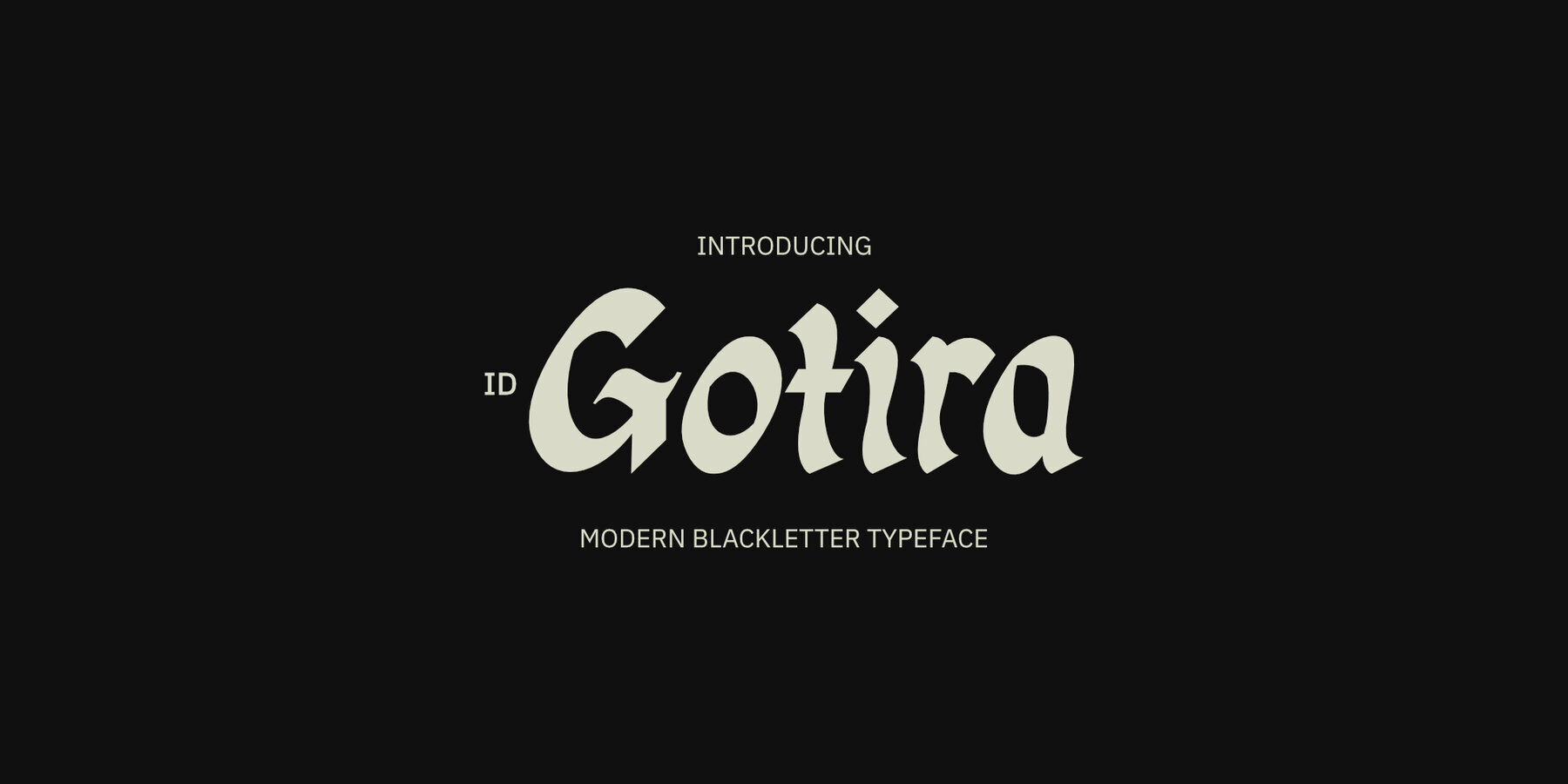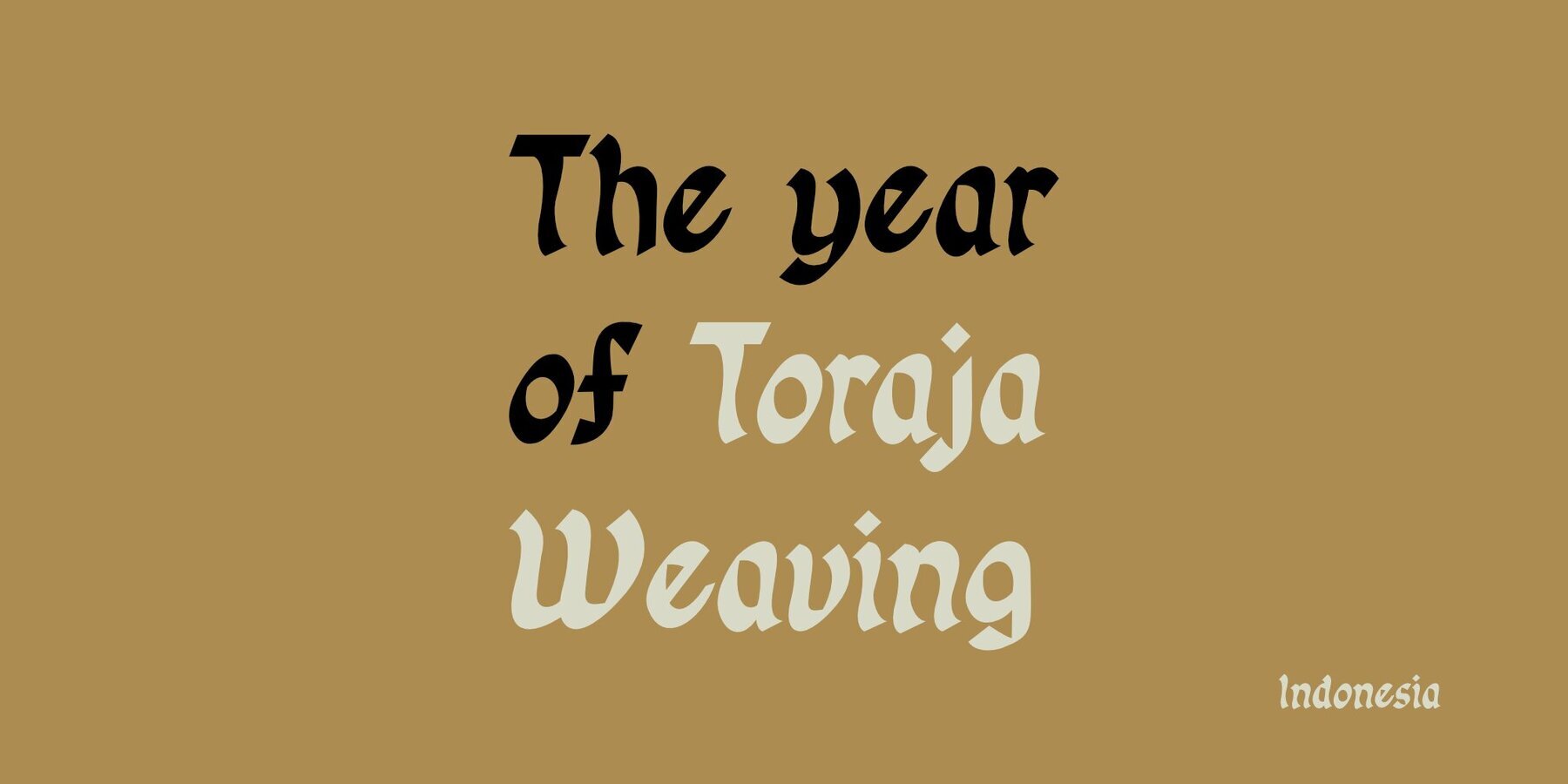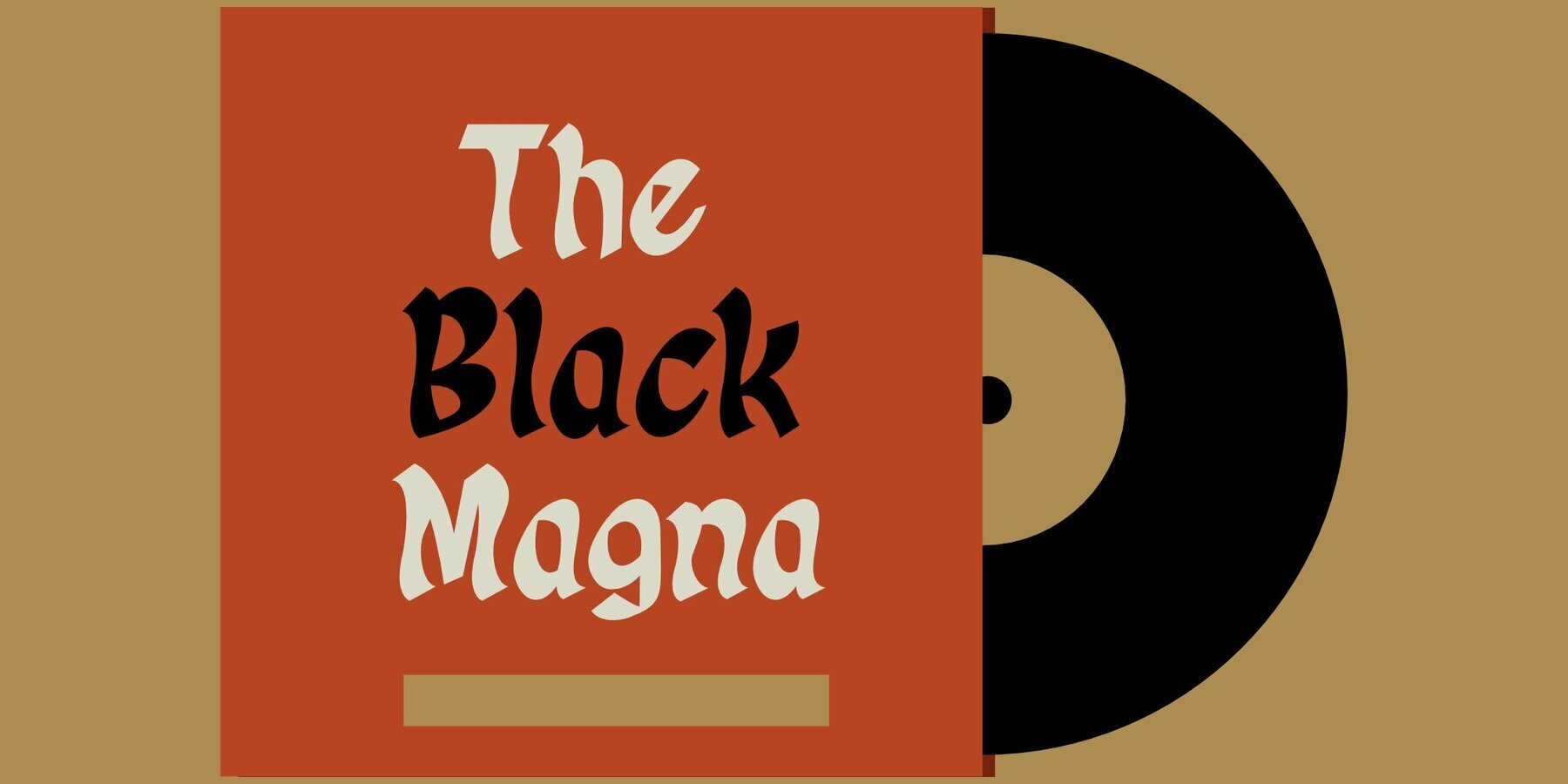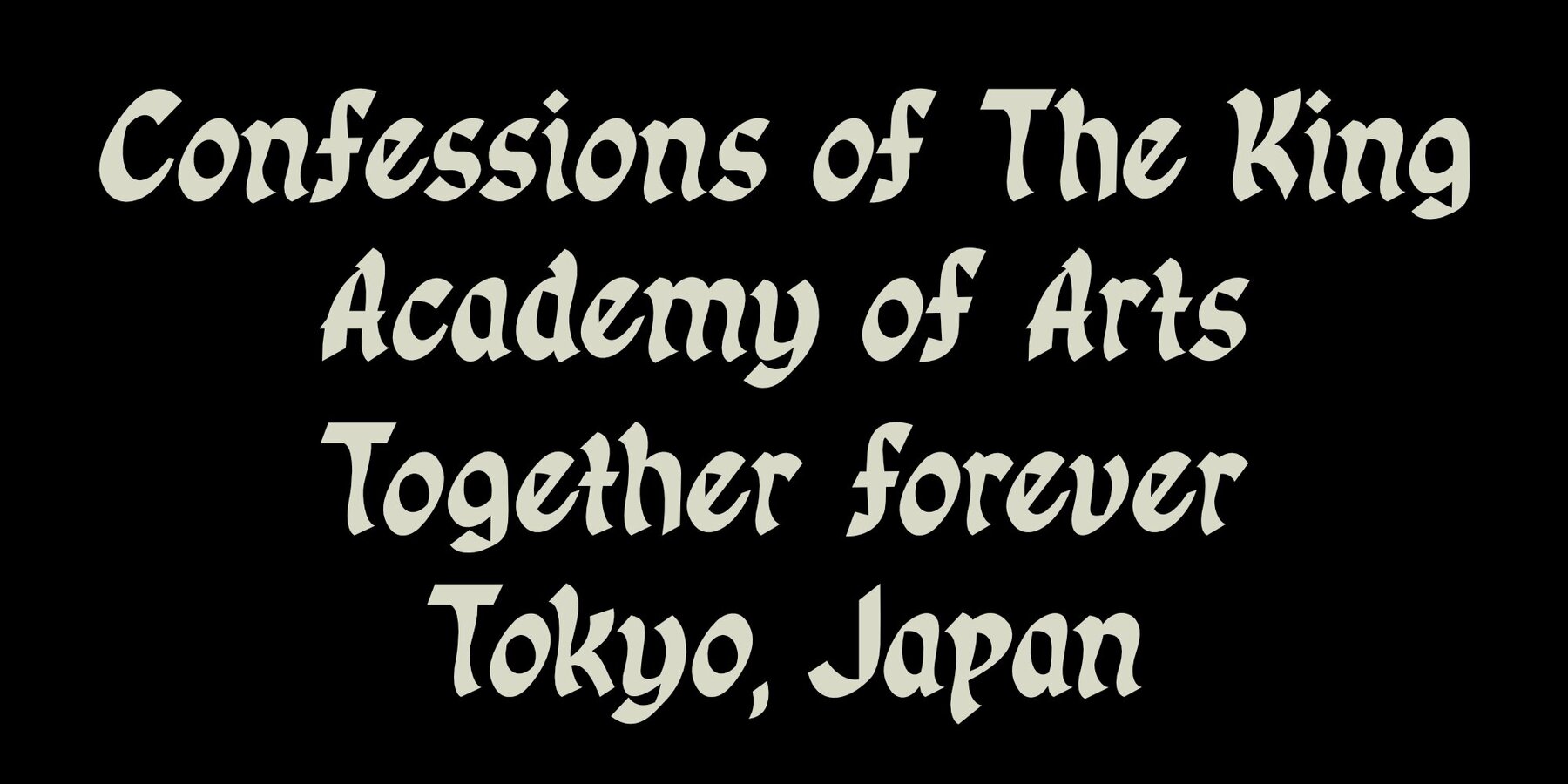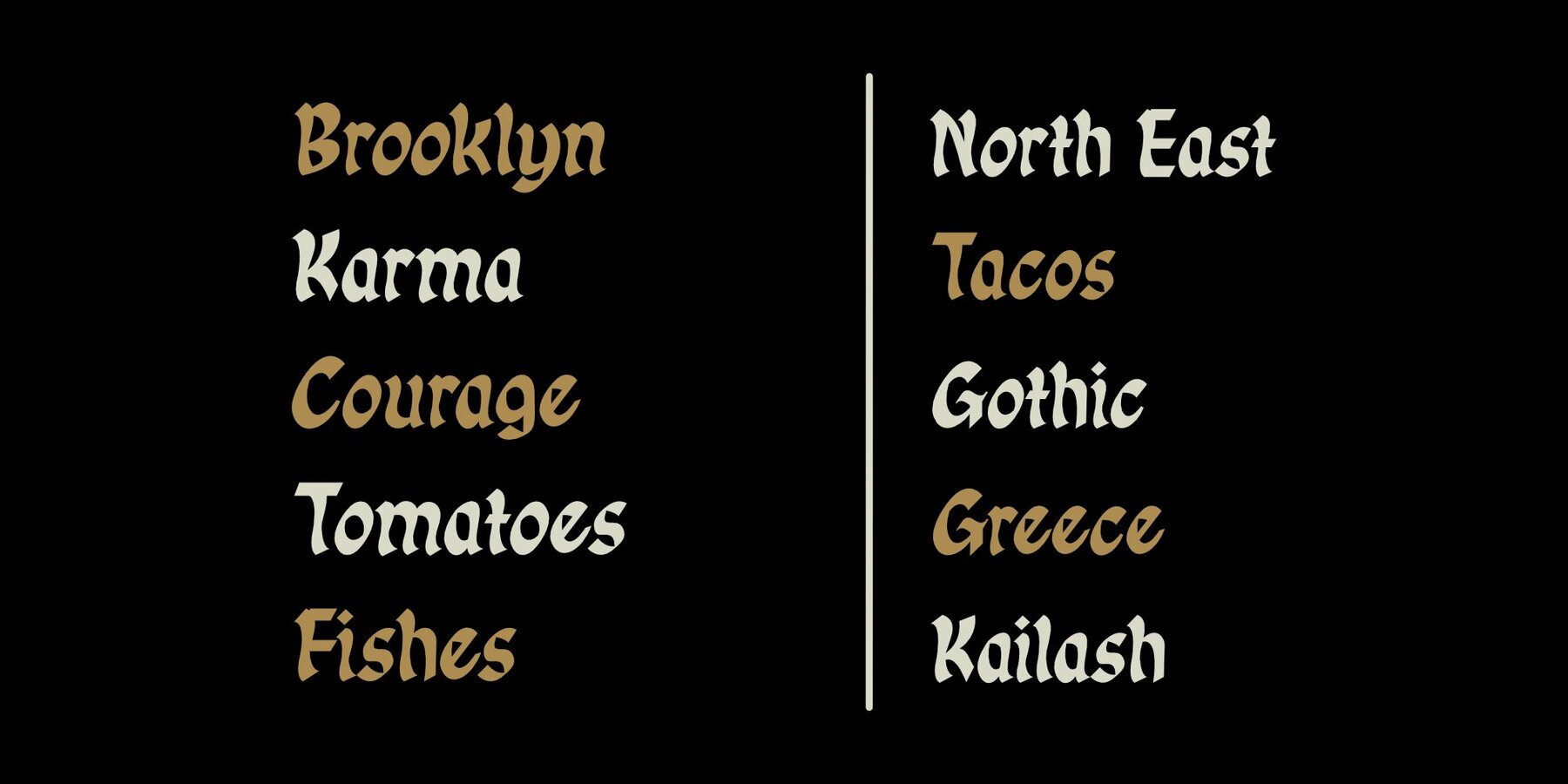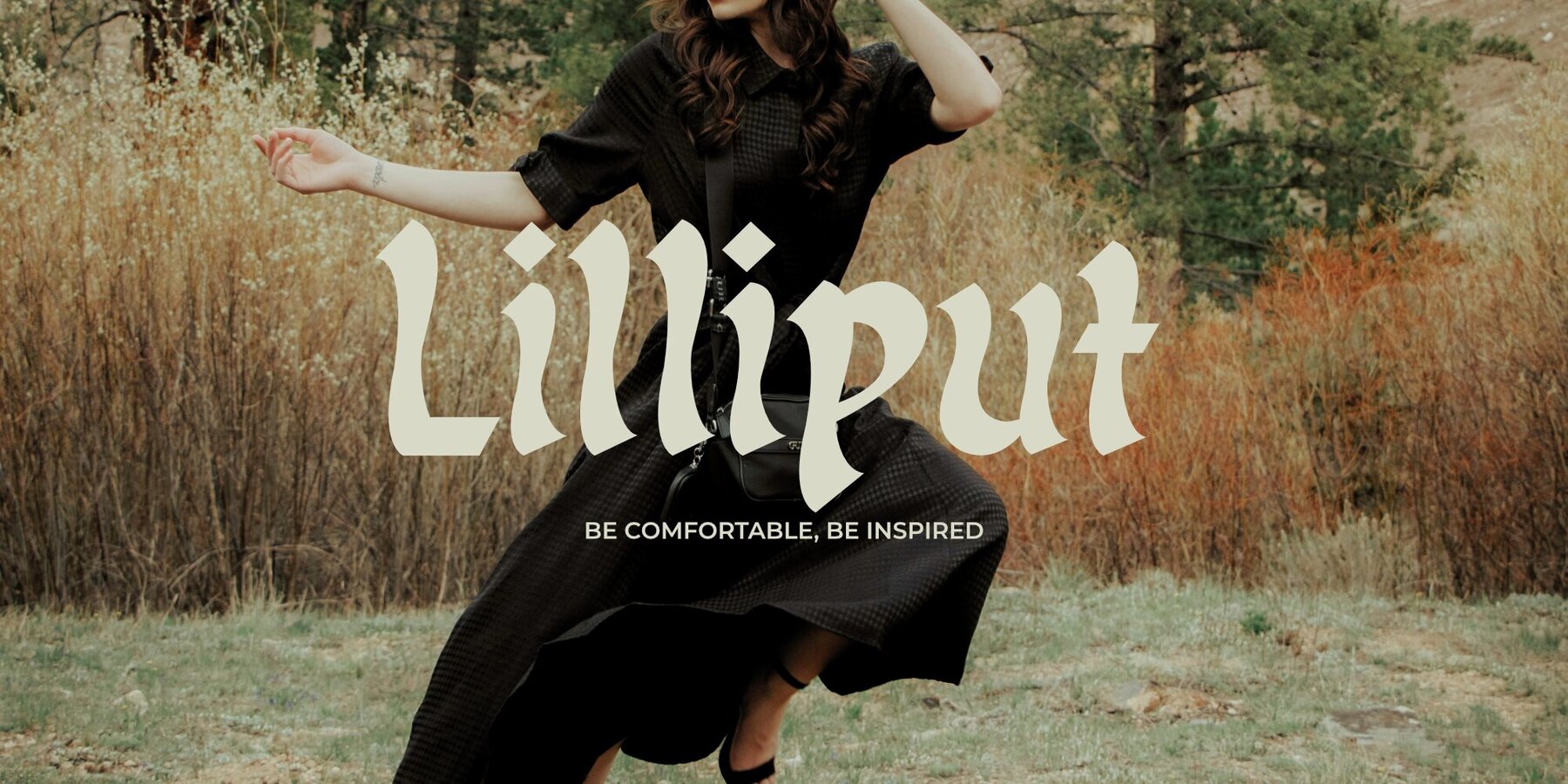
ID Gotira Blackletter Font
ID Gotira Regular
Rooted in the rich tradition of Blackletter fonts, the ID Gotira Blackletter offers a fresh perspective on this historical typeface, often associated with Old English. This font balances modern adaptability with a timeless aesthetic, making it an ideal choice for a range of creative applications. Its versatility allows it to excel not only in bold headlines but also in body text, branding, and graphic design for packaging and posters. Features:ID Gotira Blackletter: A Modern Interpretation of Classic Style